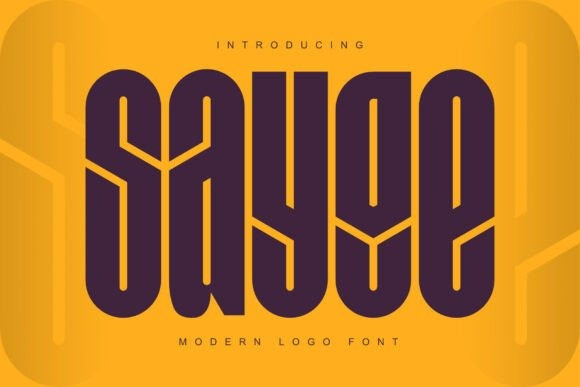
Sayge Font
Sayge Font is a sleek and innovative font designed to make a bold statement. Perfect for modern branding, logo design, and creative projects, Sayge’s geometric shapes and sharp lines exude confidence and sophistication. Its unique letterforms combine striking angles with a balanced structure, making it versatile for both high-impact headlines and stylish text applications.